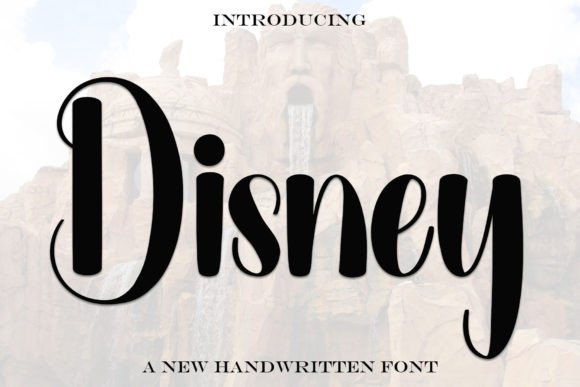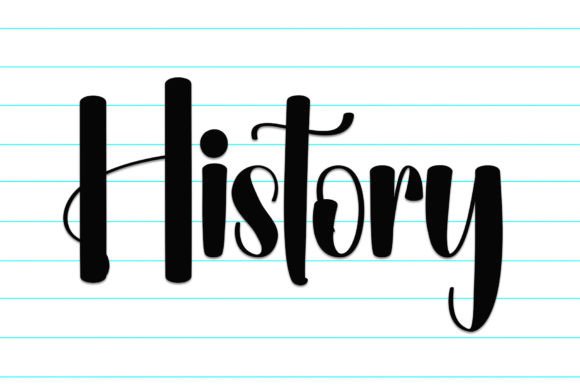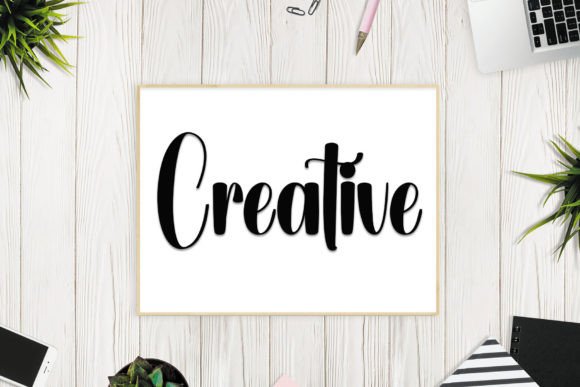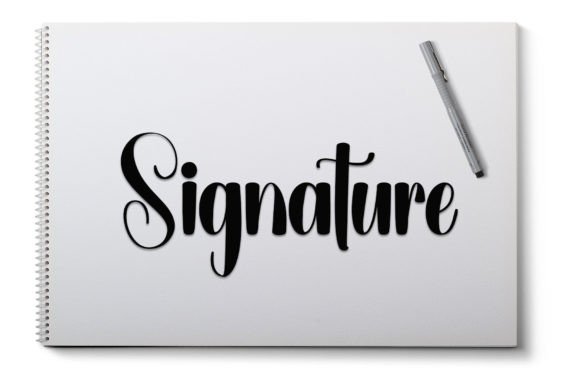
Disney Font
About the Disney Font
We are excited to introduce Disney Font, a must-have typeface for any serious designer. Disney is a sweet and friendly handwritten font. Its natural and unique style makes it incredibly fitting to a large pool of designs. The only limit is your imagination.
Disney Font shines in projects requiring a lighthearted and approachable feel. It’s ideal for children’s books, branding for sweet treats or toy companies, and playful social media graphics. Consider it for short headlines, packaging designs, and even whimsical invitations. Avoid using it for large blocks of text or UI elements; its handwritten nature makes extended reading difficult.
Pairing it with a clean sans-serif like Helvetica or a slightly more playful rounded sans-serif such as Gill Sans would create a balanced design. For a more sophisticated look, a delicate serif like Garamond could provide contrast and visual interest. Alternatively, a simple geometric sans-serif will emphasize the handwritten charm of the Disney font.
The font’s core personality is undeniably friendly and whimsical. Its slightly uneven strokes and casual letterforms communicate approachability and charm, making it perfect for projects targeted towards a younger audience or those seeking a lighthearted aesthetic.
Disney Font Usage Examples
Disney Font Example